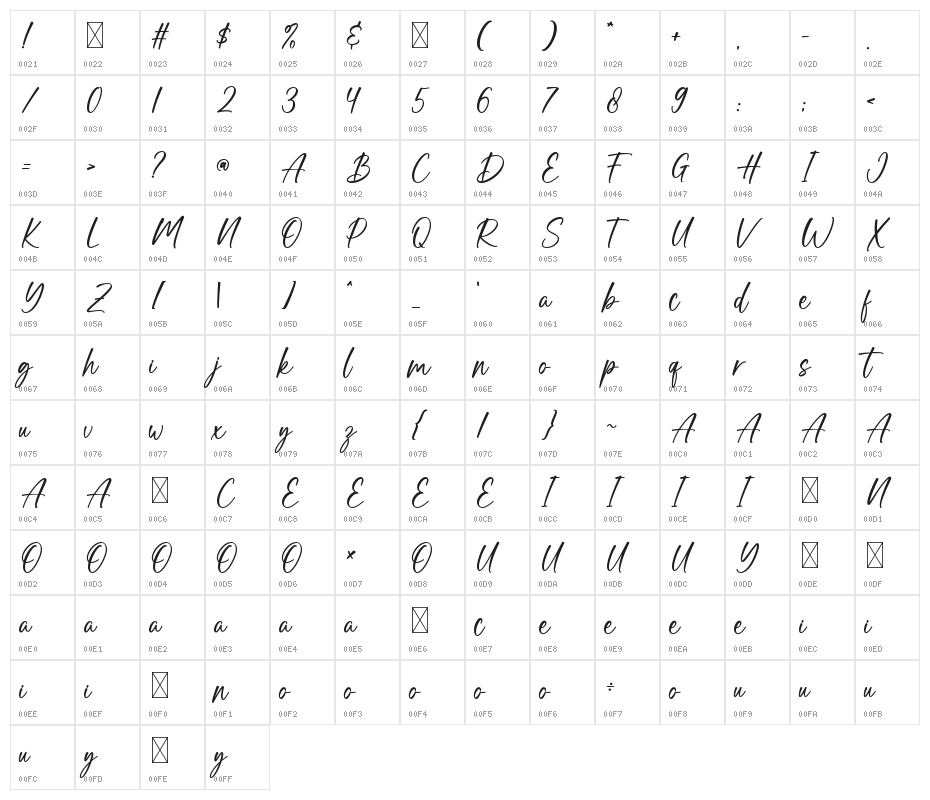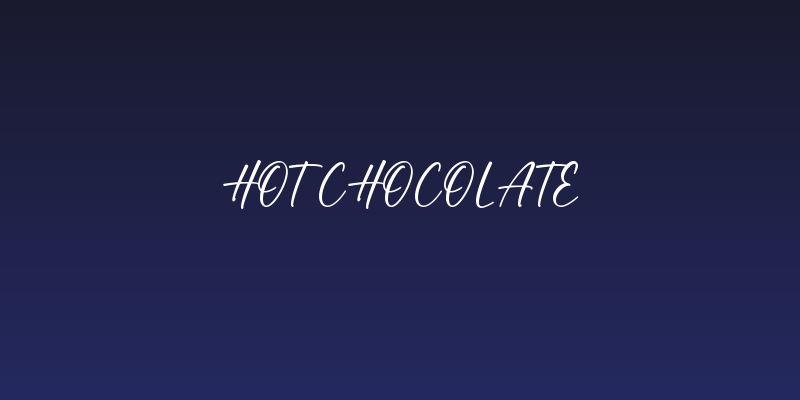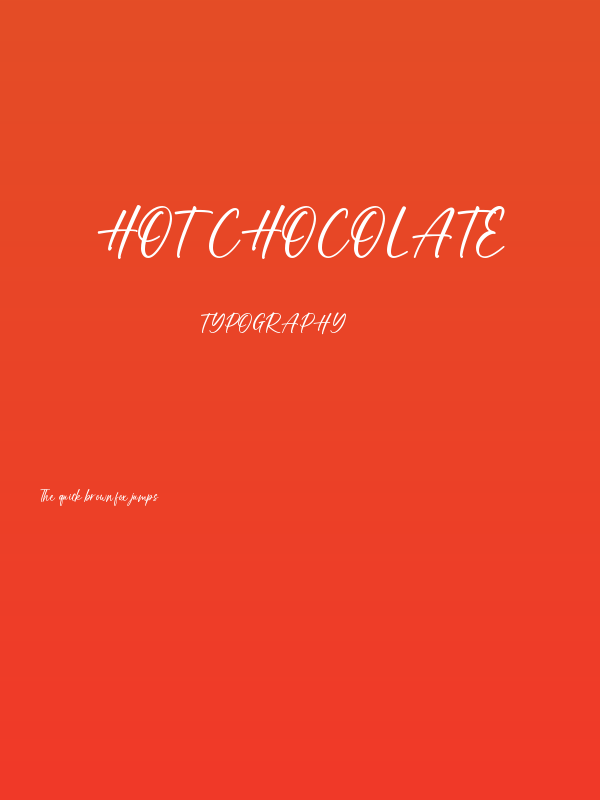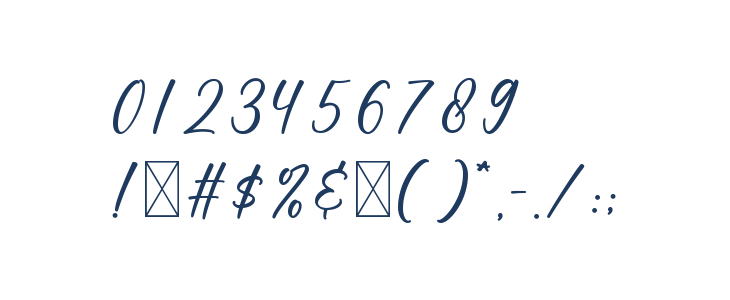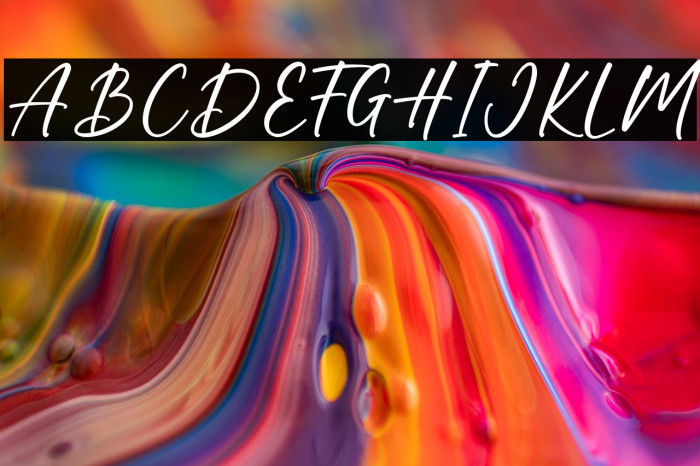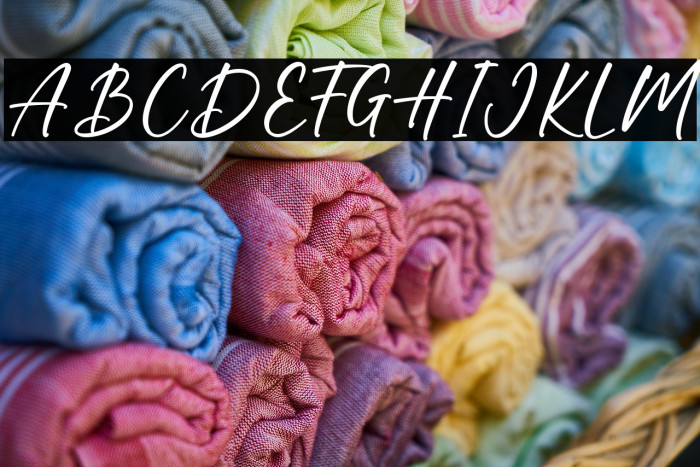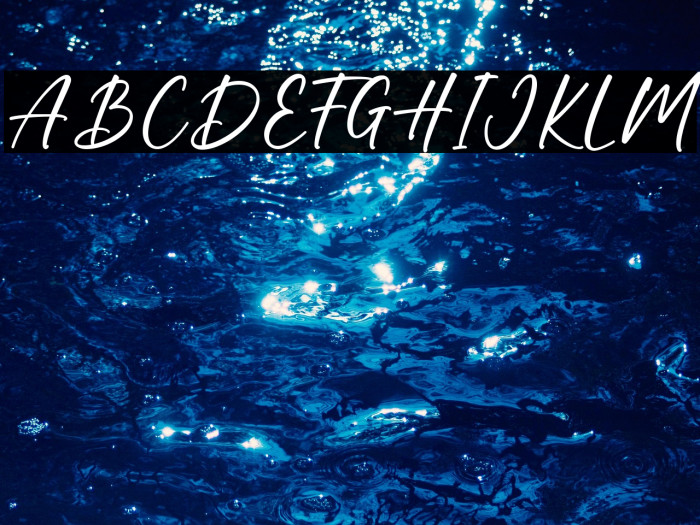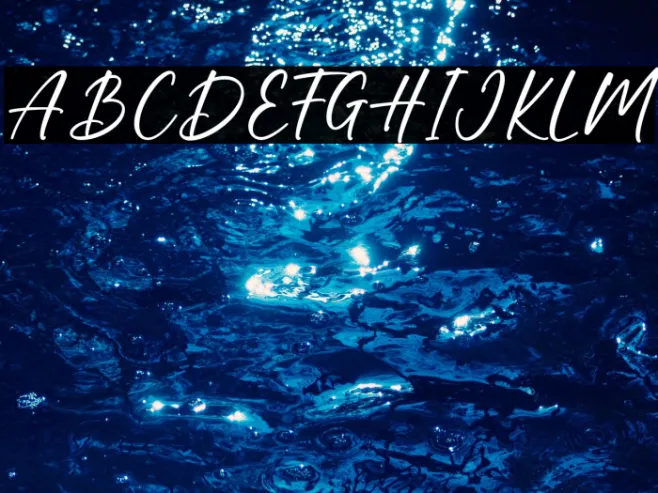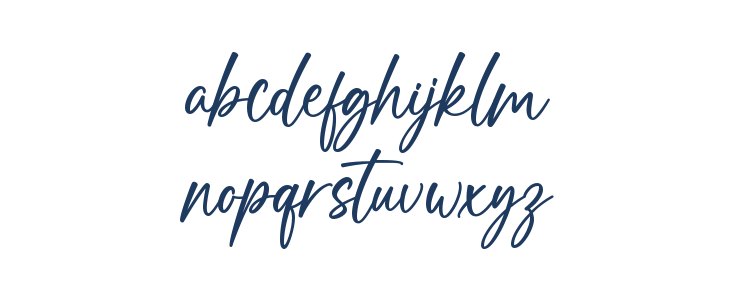
Hot Chocolate Font
Hot Chocolate Description
This font features a lively and flowing script style, reminiscent of elegant handwriting. The characters are connected with smooth, sweeping strokes that convey a sense of motion and fluidity. The uppercase letters are slightly more formal, while the lowercase letters maintain a casual, approachable feel. The numerals and special characters are consistent with the overall style, ensuring a cohesive look across all text. This font is perfect for adding a personal touch to any design, with its graceful curves and balanced proportions.